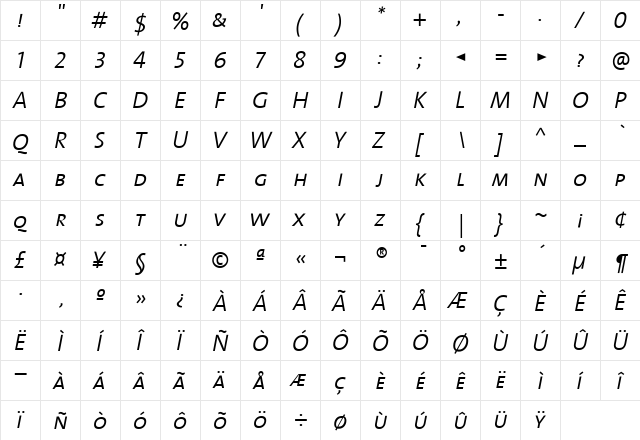
TheMixSemiLight Roman Italic
Design Context for TheMixSemiLight Typeface
TheMixSemiLight offers clean, dependable letterforms without strong stylistic allegiance, making it a practical choice for designers who need flexibility. Its italic angle brings a sense of urgency and motion to the letterforms. The delicate stroke weight brings airiness and refinement to layouts.
Pro Tip: Use TheMixSemiLight for emphasis, pull quotes, and subheadings where its slanted energy can add rhythm to the layout.